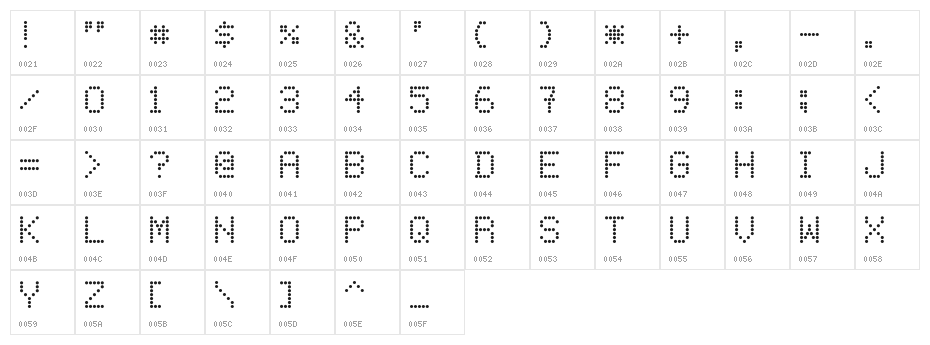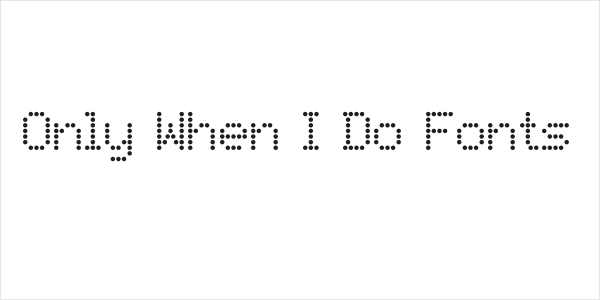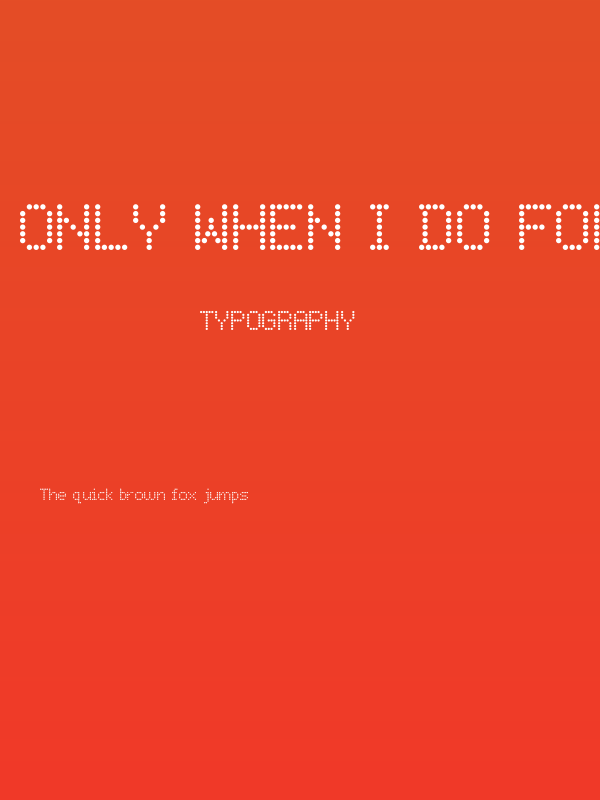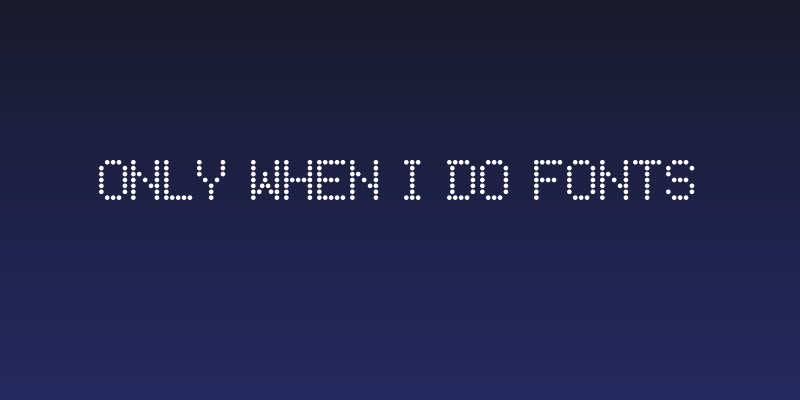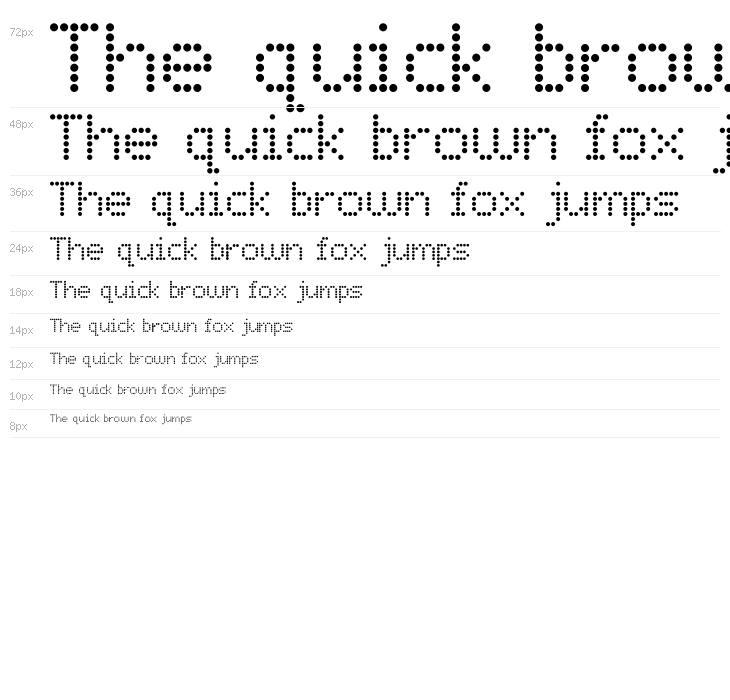
Only When I Do Fonts Font
Only When I Do Fonts Description
This font is a unique and creative design composed entirely of dots, forming each character with precision and uniformity. The dots are evenly spaced, creating a grid-like appearance that gives the font a modern and digital feel. Each letter and number is clearly distinguishable, maintaining readability despite the unconventional style. The use of dots adds a playful and innovative touch, making it suitable for projects that require a distinctive and eye-catching typeface. The font's geometric nature and consistent pattern make it versatile for various design applications.
| Proposed Projects | Ideal for digital art, tech-themed designs, posters, and creative branding projects. |